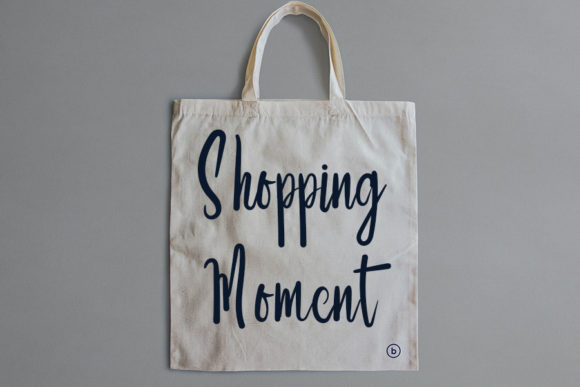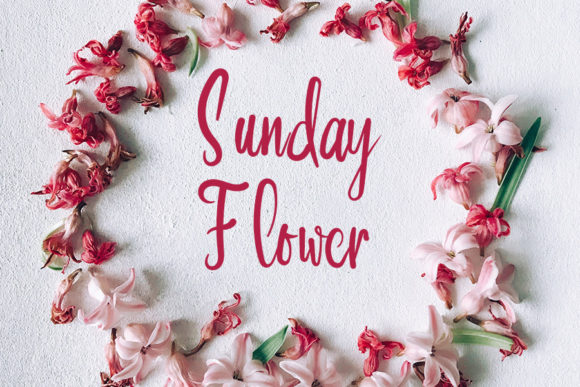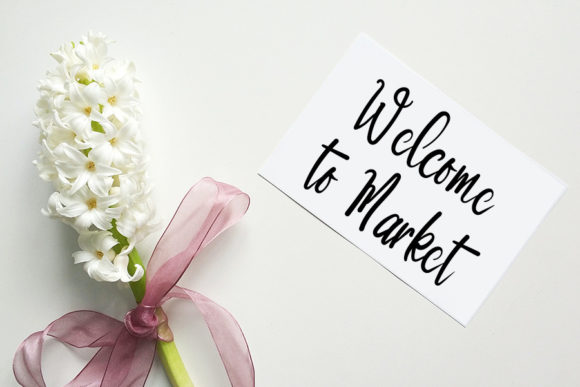
Introduction to Shopping Market Font
Have you ever stared at a blank canvas, searching for the perfect design element to bring your creative project to life? For designers, finding that one special element can be a game-changer. For me, it was the moment I discovered the Shopping Market Font – a delicate and elegant handwritten font that has become an indispensable design resource.
With its high-quality, well-balanced letters, Shopping Market Font is a masterpiece that elevates any design to new heights. Whether you’re working on a commercial project or a personal creative endeavor, this font is sure to impress. And the best part? It’s available for free download, making it an accessible design tool for designers of all levels.
One of the standout features of Shopping Market Font is its transparent background, allowing it to seamlessly blend into any design. Its versatility is unparalleled, making it a valuable asset for any designer looking to add a touch of sophistication and elegance to their work.
Key Features of Shopping Market Font
- High-quality design with a modern and trendy aesthetic, perfect for creative projects
- Unique and exclusive design, not found in any other free font resources, making it a great addition to any design project
- Perfect for use in creative projects, such as logo design, branding, and marketing materials, where a high-quality font is essential
Honest Review: Shopping Market Font
I recently came across the Shopping Market Font, and I was excited to give it a try. As a designer, I’m always on the lookout for high-quality design resources to enhance my creative projects.
The Shopping Market Font is a free download, which is always a bonus. It’s a versatile font that can be used for a variety of purposes, from shopping and commerce to food and beverages.
- ✨ High-quality design with a transparent background, making it easy to use in different projects.
- ✨ Versatile font that can be used for various industries, including shopping and commerce.
- ⚠️ Limited character set, which may not be suitable for long-form content.
- ⚠️ Not ideal for use in complex designs, as it may not hold up well to resizing.
Overall, the Shopping Market Font is a great addition to any designer’s toolkit. While it has some limitations, its high quality and versatility make it a valuable resource for creative projects. With a little creativity, you can use this font to create some amazing designs.
The Shopping Market Font is perfect for use in marketing materials, such as brochures and flyers. It’s also great for creating social media graphics and online advertisements. With its high-quality design and transparent background, this font is a valuable resource for any business or individual looking to create eye-catching designs.